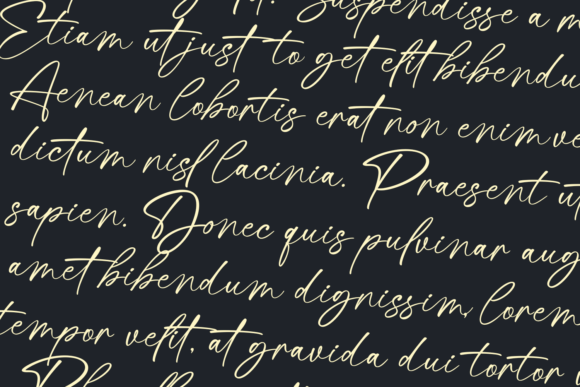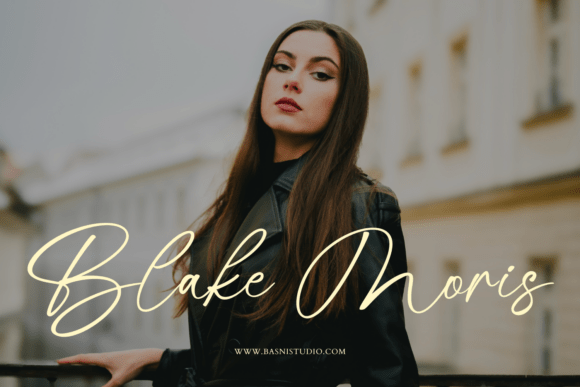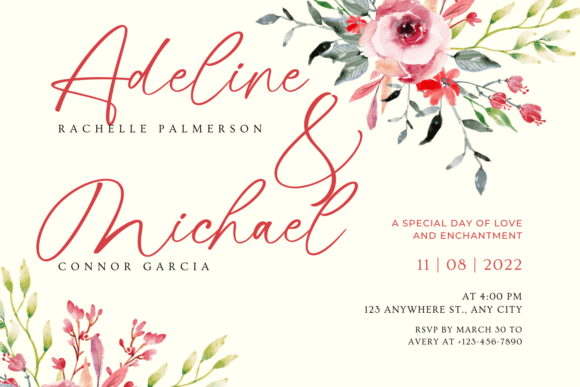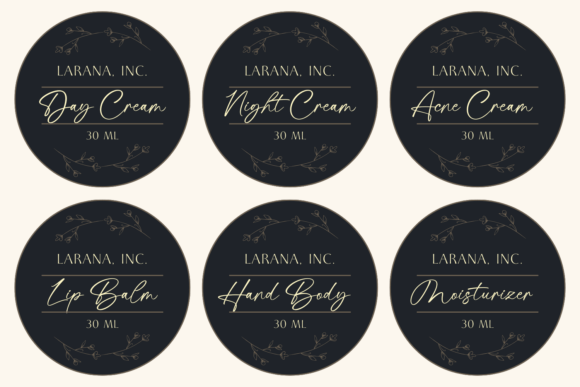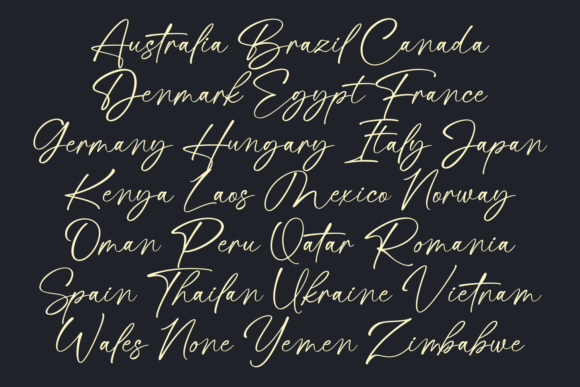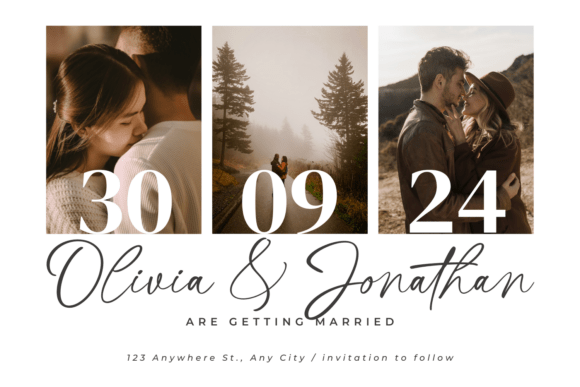
Introduction to Mastine Font
As designers, we’ve all been there – staring at a blank canvas, waiting for that perfect font to bring our creative project to life. For me, it was the moment I discovered Mastine Font, an authentic brush-style handwritten font that exudes effortless elegance. Its unique blend of casual, hand-drawn charm and high-end sophistication made it an instant favorite. Whether you’re working on a high-fashion branding project or a bespoke wedding invitation, Mastine Font is the perfect design resource to elevate your work.
With its elegant, thin strokes and modern cursive silhouette, Mastine Font is a high-quality font that adds a personal, artisanal touch to any design. And the best part? It’s available for free download, making it a valuable addition to any designer’s toolkit. Whether you’re a seasoned pro or just starting out, Mastine Font is a must-have for any creative project that requires a touch of sophistication and style.
Key Features of Mastine Font
- High-quality design resource for creative projects, suitable for various applications, including logos, graphics, and typography.
- Unique, elegant design with a transparent background, allowing for easy layering and composition in your creative project.
Honest Review: Mastine Font
I recently stumbled upon the Mastine Font and was excited to give it a try in my current design project. As a designer, I’m always on the lookout for high-quality fonts that can elevate my work. The Mastine Font did not disappoint.
- What works well: ✨ The font is incredibly versatile and works well for a variety of creative projects, from editorial designs to branding materials. The clean and modern design makes it perfect for digital applications.
- What works well: ✨ The transparent background option allows for seamless integration with any design, giving me complete control over the final look.
While the Mastine Font excels in many areas, there are a few limitations to consider. ⚠️ The font family is relatively small, with only a few weights and styles available. Additionally, some users may find the font to be a bit too modern for certain design projects.
Overall, I’m impressed with the Mastine Font and would definitely recommend it as a valuable design resource. The free download option is a huge bonus, making it accessible to designers of all levels. With its high quality and versatility, the Mastine Font is sure to become a staple in my design library.
The Mastine Font is a high-quality design resource ideal for creative projects that require a unique and elegant touch. It’s available for free download and features a transparent background, making it versatile for various design applications.
Tips for Getting the Most Out of Mastine Font
For optimal results, use Mastine Font in conjunction with high-contrast colors and bold graphics. Experiment with different font sizes and styles to achieve the desired visual impact.
Mastine Font is ideal for creative projects such as logos, business cards, posters, and social media graphics. Its elegant design and transparent background make it versatile for various design applications.